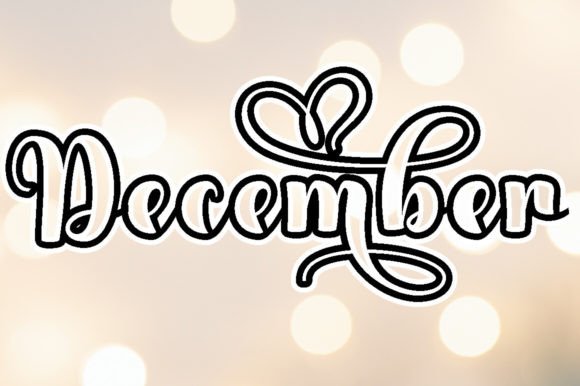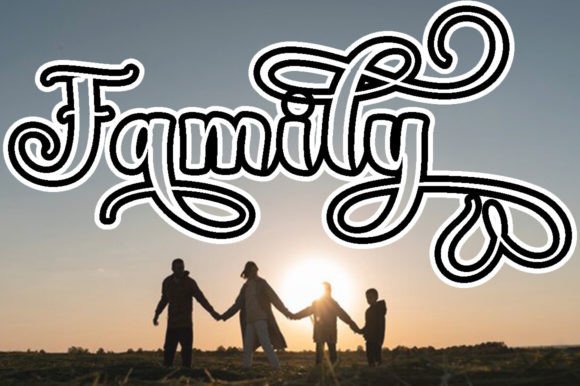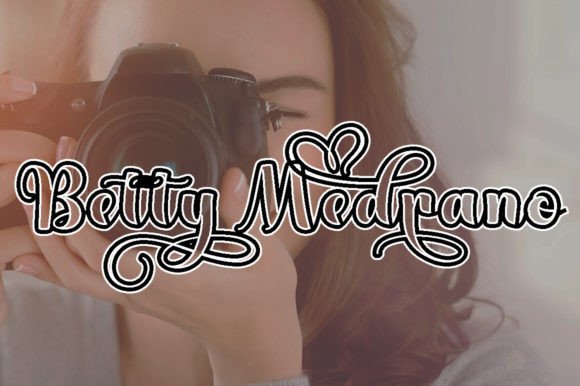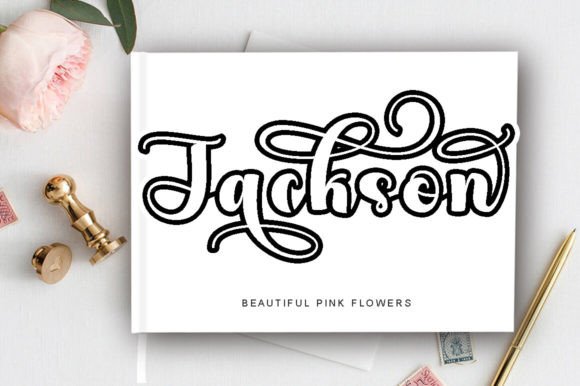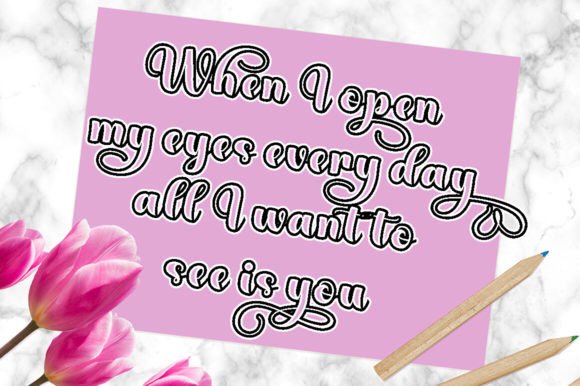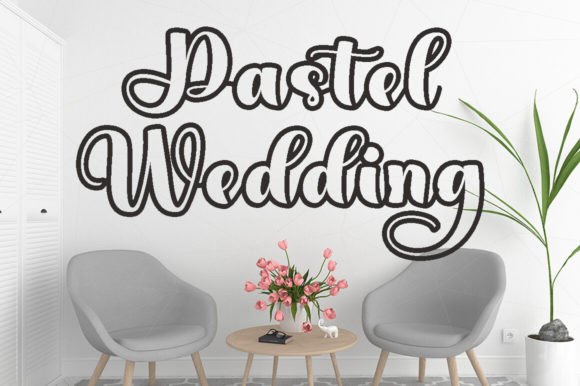
Introduction to Single Outline Font
Have you ever been working on a creative project, pouring your heart and soul into it, only to realize that the perfect font is missing? That’s exactly what happened to me when I stumbled upon the Single Outline Font. This adorable, handwritten font is a game-changer for any design project. With its warm and romantic feel, it’s perfect for turning your ideas into stunning works of art.
As a designer, I know how valuable a great font can be. That’s why I’m excited to share my discovery with you. The Single Outline Font is not only cute and versatile but also comes with language support and PUA coding, making it easy to access all the glyphs and swashes. Whether you’re working on a design project or need a high-quality font for a transparent background, this font is sure to impress.
Key Features of Single Outline Font
- High-quality vector design, suitable for a variety of creative projects.
- Transparent background, allowing for easy integration into any design resource.
- Unique outline design, offering a clean and modern aesthetic for any creative project.
Honest Review: Single Outline Font
I recently came across the Single Outline Font, and I’m excited to share my thoughts on this design resource. As a designer, I’m always on the lookout for high-quality fonts that can elevate my creative projects.
What works well: ✨ The Single Outline Font offers a clean and modern design aesthetic, perfect for creating visually appealing graphics and designs. The font’s transparent background makes it easy to customize and layer with other design elements.
Limitations: ⚠️ While the font is well-designed, it’s not particularly versatile. The Single Outline Font may not be suitable for projects that require a more complex or dynamic font style.
- High-quality design aesthetic
- Perfect for modern and minimalist designs
Overall impression: I’m impressed with the Single Outline Font’s simplicity and elegance. It’s a solid design resource for designers working on creative projects that require a clean and modern look.
The Single Outline Font is a versatile design resource that can elevate your creative project to the next level. With its high-quality, transparent background, this font is perfect for adding a touch of sophistication to your designs.
The Single Outline Font is ideal for:
- Creating high-quality titles and headings
- Designing logos and brand identities
- Adding a touch of elegance to presentations and reports